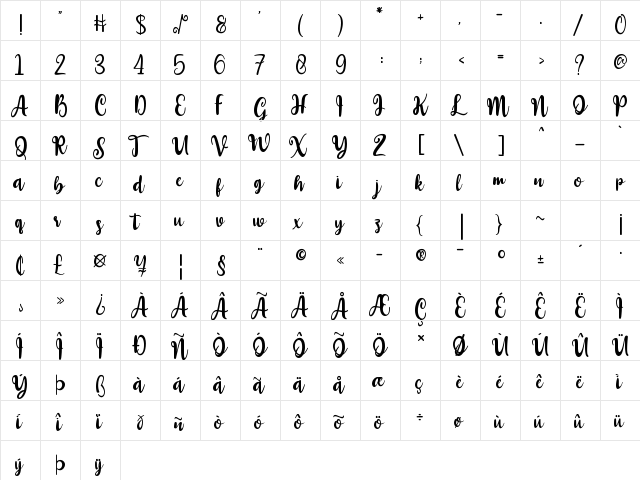
Westline Regular
| Designer | Riyadh Rahman |
Design Context for Westline Typeface
Westline is a composed and adaptable typeface that performs quietly and consistently across a wide range of design contexts.